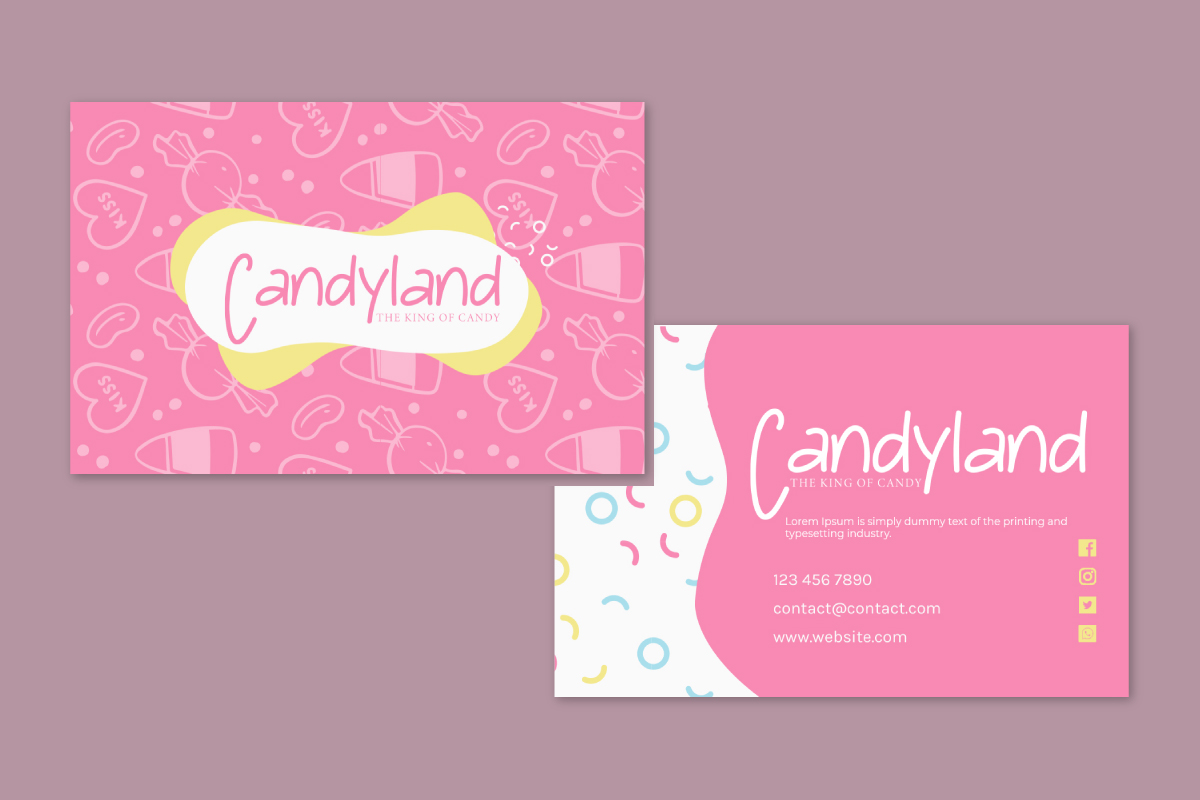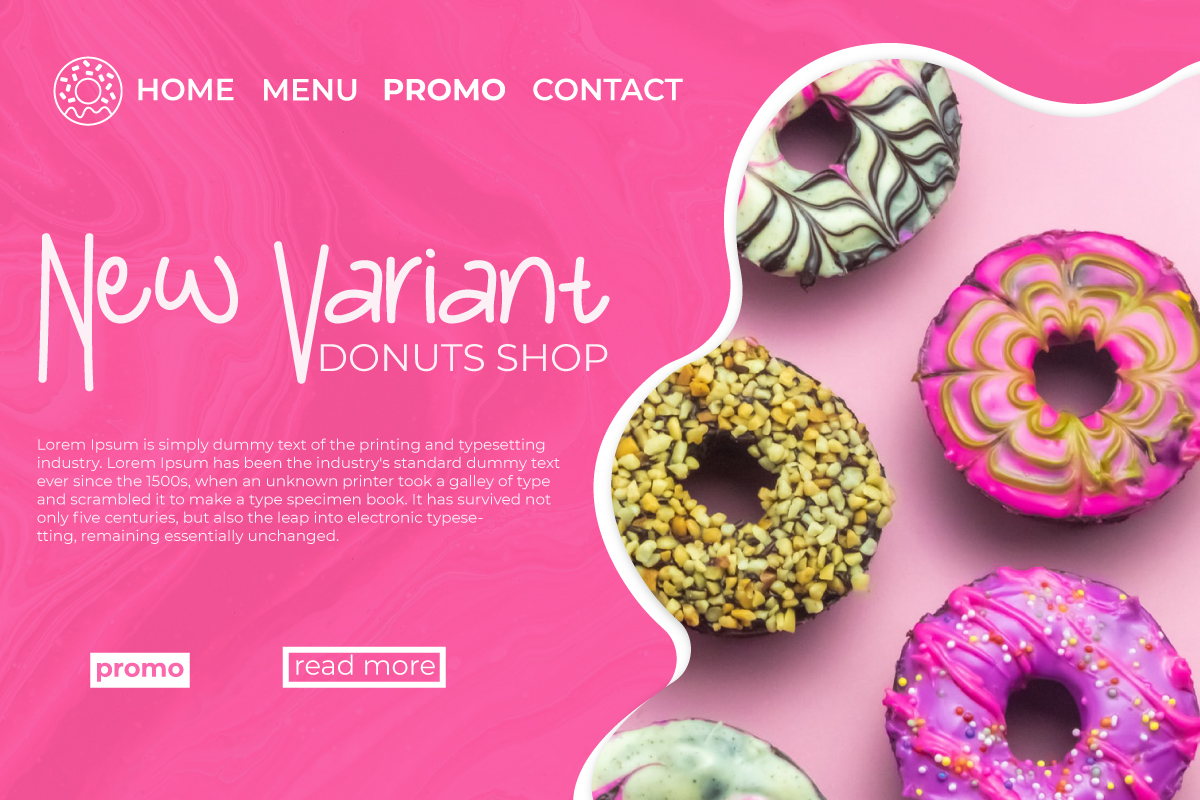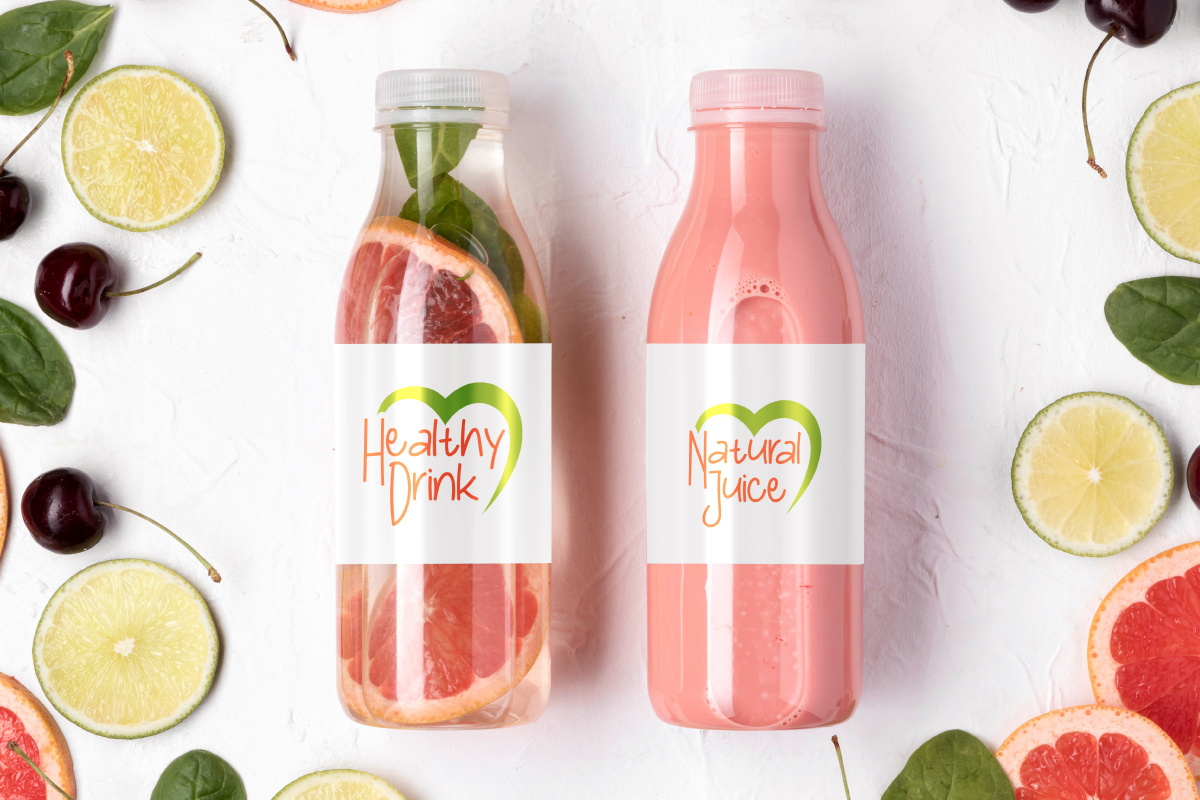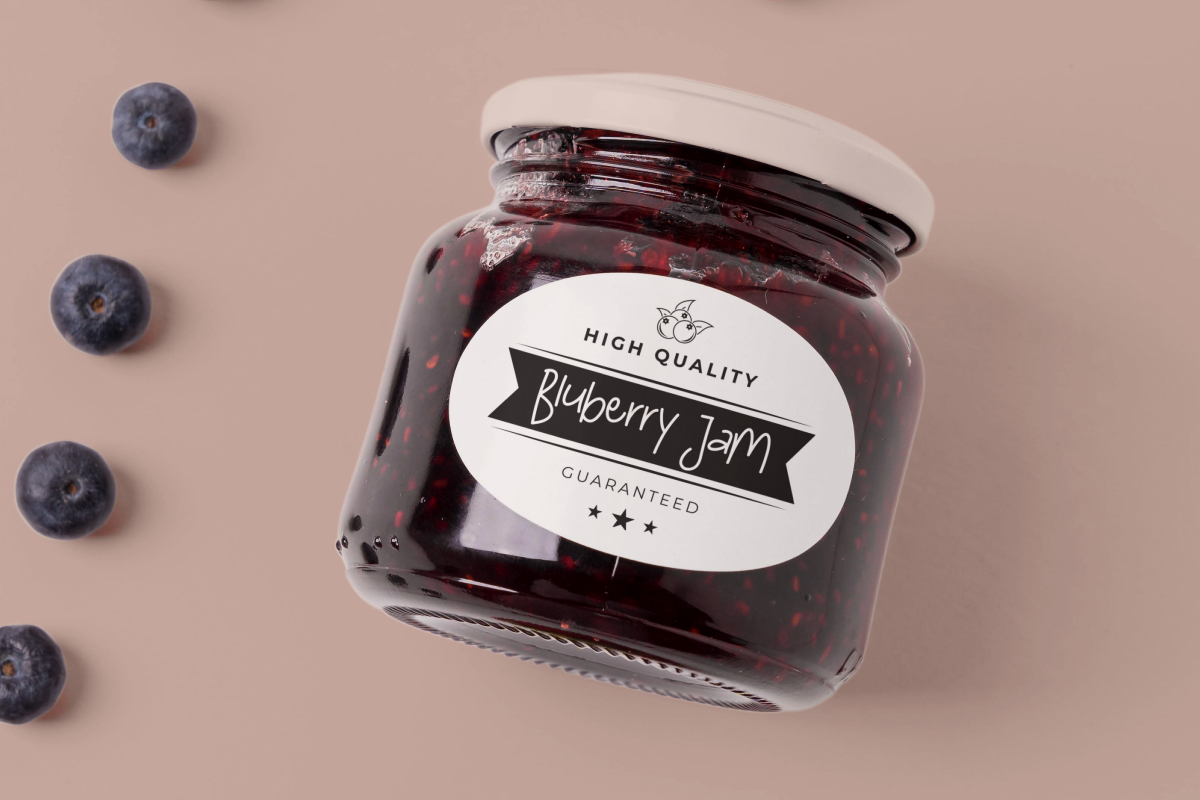
Lollipop Jar Font
Lollipop Jar Display Font
It’s a decorative font inspired by candies and other sweet delicious things. The font will be awesome for frame art, products packaging, signage, website and many more!! Lollipop Jar Font will suit many industries and categories related to birthday, kids, school and anything that requires sweet fun girl styles.